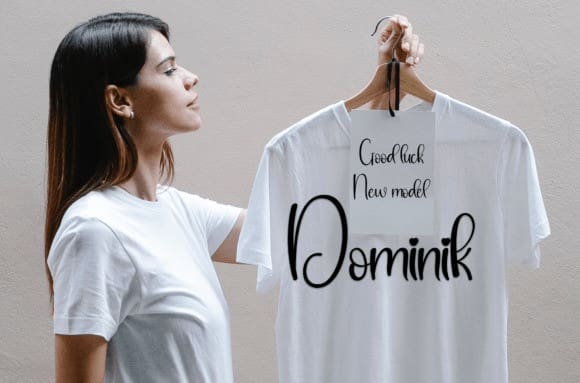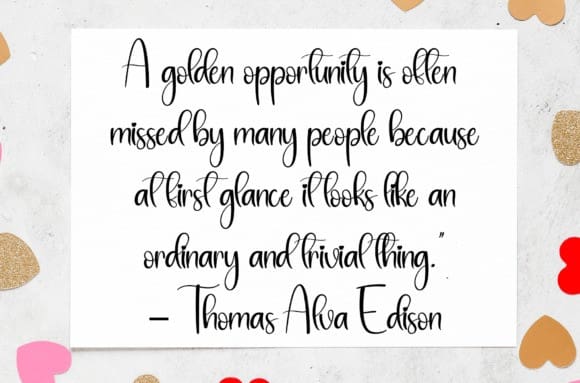
House Bakery Font
House Bakery Font is a sweet and friendly handwritten font. Creative and cute, this font is ideal for writing wedding invitations, cards, or any other design that might need a fun touch!